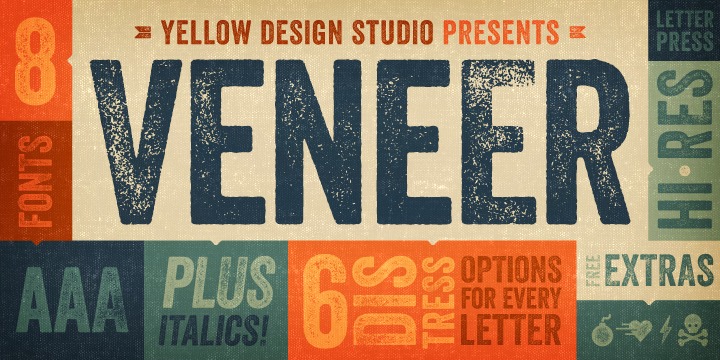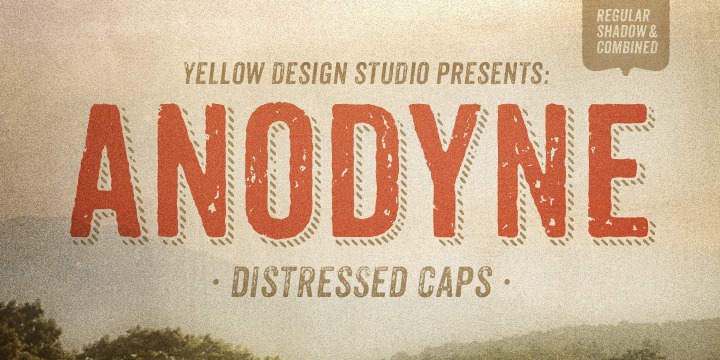
America The Beautiful Font
America The Beautiful
OL America The Beautiful is a typeface created & published by Dennis Ortiz-Lopez that has designed to honor the Land of United States of America. It is recommanded for editorial projects, headline, magazine, logo etc. I’m sure you need’it!
Number Five Font
Number Five
Number Five is a pure 50′s American typeface created and published by Laura Worthington. With a design coming in two versions, Smooth and Rough, make Number Five suitable for logos, vintage and editorial images.
Filmotype LaCrosse Font
Filmotype LaCrosse
Filmotype LaCrosse is a typeface created by Patrick Griffin and published by Filmotype. It is an elegant decorative handwritten font that can be use on headline, display, posters, movies etc.
National Currency Font
National Currency
National Currency is a typeface published by Decade Typefoundry. It has old letter and two guilloche borders inspired by a 19th century certificate. Enjoy!
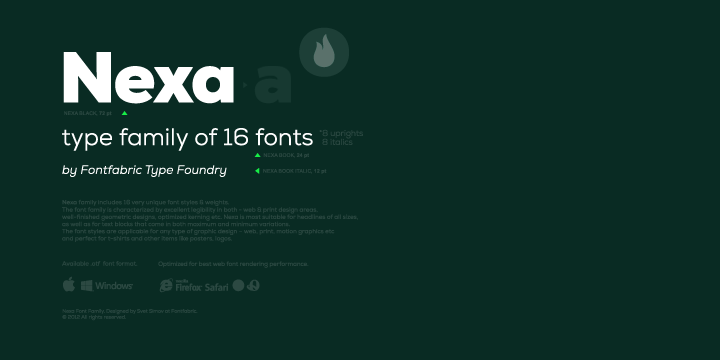
Margot Font
Margot
Margot is a typeface created by Dave Rowland and published by Schizotype. It is a warm font that you can use on logo.
Veneer Font
Veneer
Veneer is a typeface created by Ryan Martinson and published by Yellow Design Studio. It is a vintage font with six distress options for every letter.
Homsley Font
Homsley
Homsley is a typeface created by Jennifer DeAngelis Gunn and published by Design23 in 2013. It is a vintage font perfect for writing love letters, wedding invitation etc. Enjoy!
Cheap Pine Font
Cheap Pine
Cheap Pine is a typeface created by Hannes von Döhren and published by HVD Fonts. If you are looking for a font to influence the color of the shadows, you find it. Also, you’ll find a lot of simbols arrows, stars, hands etc. to use in your projects.
Anodyne Font
Anodyne
Anodyne is a typeface created by Ryan Martinson and published by Yellow Design Studio. If you want to be creative and have fun with a hand-printed texture and unique shadow options, buy Anodyne! It also has an extended character set for multiple language support.
Poem Script Pro Font
Poem Script Pro
Poem Script Pro is a typeface created by Alejandro Paul and published by Sudtipos. Buying this font, you will find plenty of variatoins on each letter and comes with hundreds of calligraphic ornaments.
CA Oskar Font
CA Oskar
CA Oskar is a font created by Stefan Claudius and published by Cape-Arcona. This typeface is a combination of industrial harsness and friendly round forms.
Nexa Font
Nexa
Nexa is a typeface created by Svetoslav Simov and published by Fontfabric. The font styles are applicable for web design, print, motion graphics even on t-shirts, logos, posters.